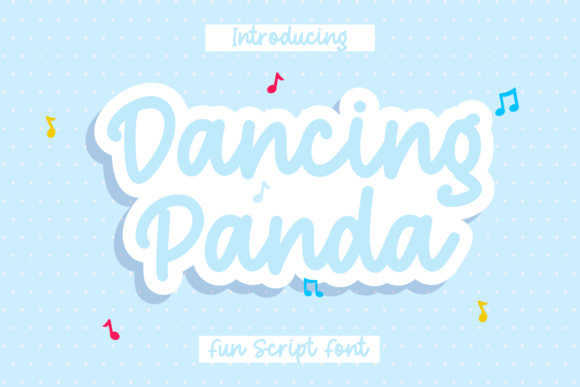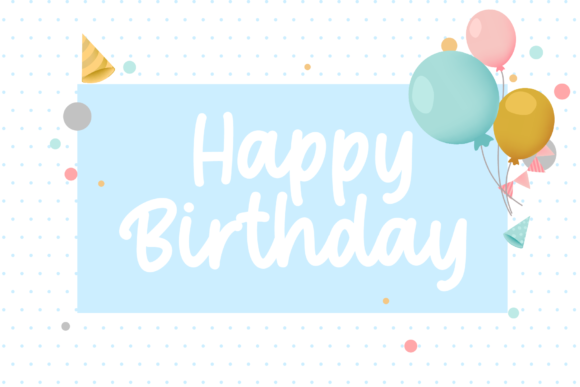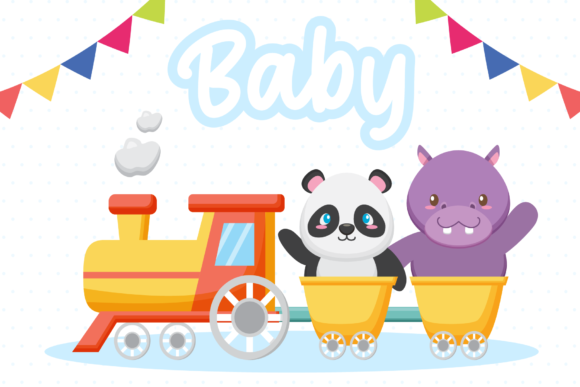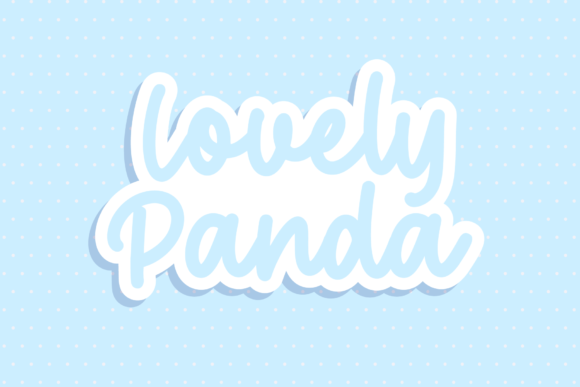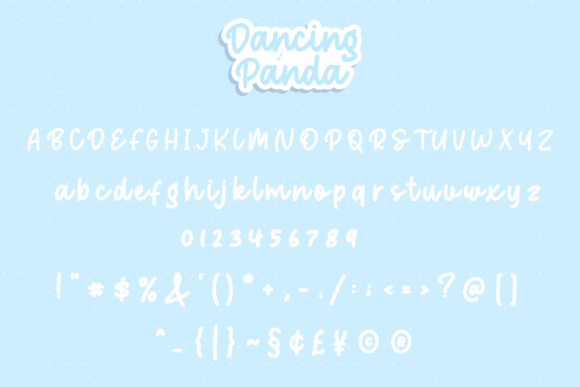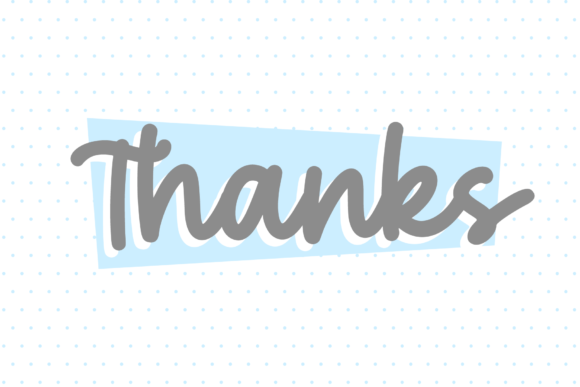
Dancing Panda Font
About Dancing Panda Font
Introducing “Dancing Panda,” a cute and playful handwritten font that will bring a sense of joy and whimsy to your designs. With its charming and authentic look, this font is perfect for creating chalkboard quotes, teaching materials, and any project that needs a touch of cuteness and personality.
Dancing Panda captures the essence of hand-drawn lettering, with its slightly irregular lines and endearing imperfections. Each letter has a delightful bounce and energy, as if it’s dancing across the page. This font exudes a sense of playfulness and brings a personal touch to your designs.
The authentic look and feel of Dancing Panda make it ideal for creating chalkboard-inspired designs. Whether you’re designing educational materials, inspirational quotes, or playful illustrations, this font will add a personal and realistic feel to your designs. It’s as if the words were written by hand, creating a warm and inviting atmosphere.
The versatility of Dancing Panda allows it to be used in various design projects. It’s great for creating greeting cards, children’s book illustrations, social media graphics, and more. Its friendly and approachable style appeals to all ages and adds a touch of whimsy to your designs.
With Dancing Panda, you have the freedom to create eye-catching and memorable designs. Experiment with different colors, sizes, and layouts to bring your ideas to life. The authentic and playful nature of this font will make your designs stand out and capture the hearts of your audience.
In summary, Dancing Panda is a cute handwritten font that brings a sense of joy and authenticity to your designs. Whether you’re creating chalkboard quotes or teaching materials, this font adds a personal and realistic feel that will engage and captivate your audience. So let your creativity soar and let Dancing Panda bring a delightful touch to your next design project!